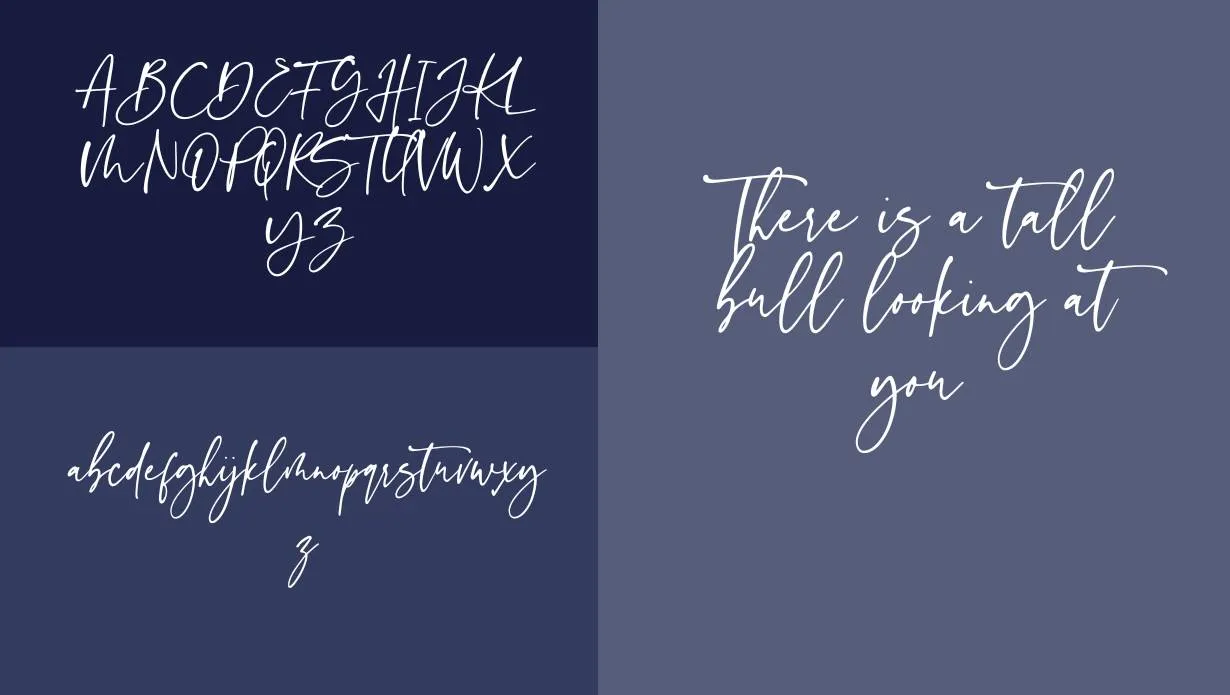
amSinthya Font is a modern and versatile typeface that blends style and readability. Its clean lines and contemporary feel make it suitable for website content, business documents, and modern branding.
This font, available in Adobe and MS Word, is often used to create a professional and clean look, providing clarity and a sleek appearance to various text elements in different projects.
| Name | Sinthya Font |
| Designer | Creative Fabrica |